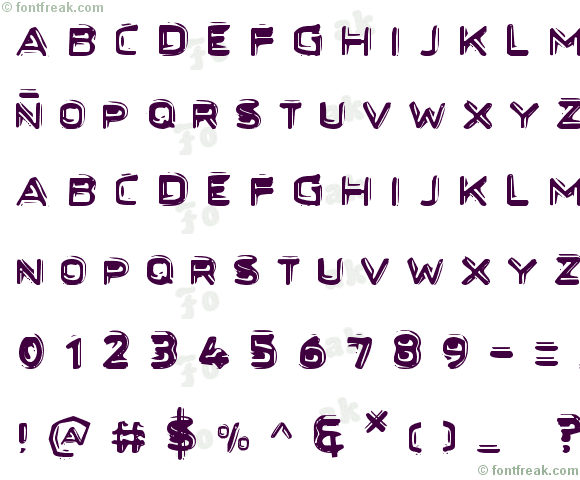
Secret Files
Secret Files II Italic
Secret Files Italic
Secret Files II
About Secret Files
The Secret Files font by Daniel Zadorozny is a captivating display typeface that embodies a unique blend of intrigue and modernity. This decorative font features a bold, slightly rounded style with a distinctive character. The letters exhibit a playful yet structured design, characterized by varied stroke weights that create a dynamic visual appeal. The spacing between the characters is well-balanced, allowing for readability while maintaining an artistic flair. The overall aesthetic is reminiscent of retro graphics, making it perfect for projects that seek a hint of nostalgia combined with contemporary design elements.
Best suited for creative endeavors, the Secret Files font excels in a wide range of applications. It is an excellent choice for movie posters, where its bold presence can draw attention and convey a sense of mystery. Additionally, this font works wonderfully in promotional materials for escape rooms or secretive events, enhancing the thematic elements. Graphic designers can also leverage its unique charm for branding initiatives, especially for businesses in creative industries, such as design studios or tech startups. Content creators will find it ideal for crafting eye-catching social media graphics or blog headers that stand out.
What truly sets the Secret Files font apart is its ability to evoke curiosity while remaining versatile. This font not only serves as a visual tool but also tells a story, making it a compelling choice for those who want to leave a memorable impression. For those interested, the Secret Files font free download is available, allowing users to explore its potential in their creative projects.